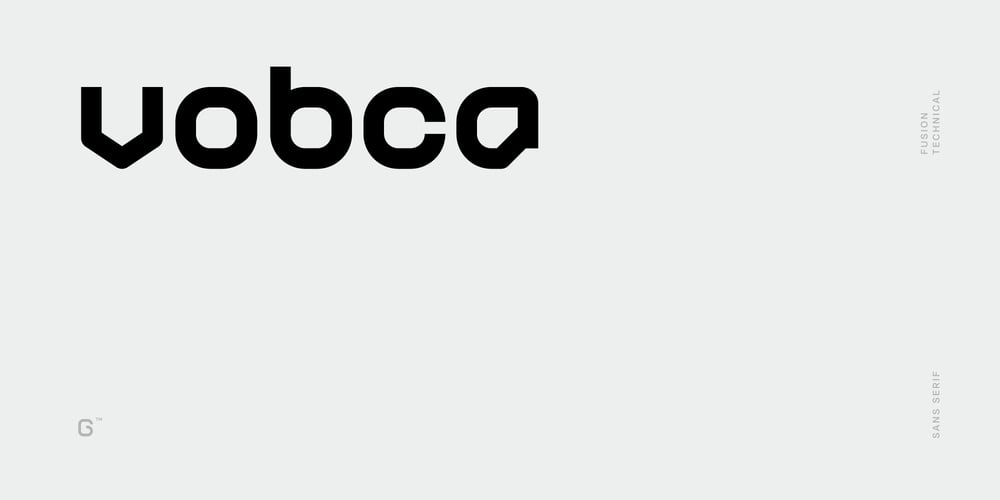
Vobca
Vobca font
Vobca Font Family was designed by Andrew Seah and published by Baqoos. Vobca contains 5 styles and family package options. Vobca is a dynamic fusion linear sans apt for headline, editorial, branding, packaging, printed materials and typographic applications. 200+ glyphs with ligatures and fractions provided in opentype .otf and .woff format.